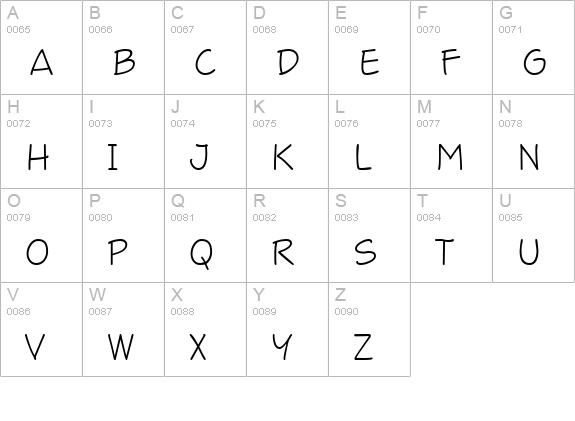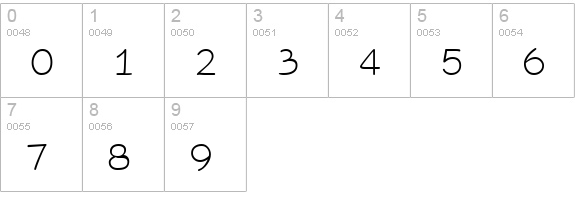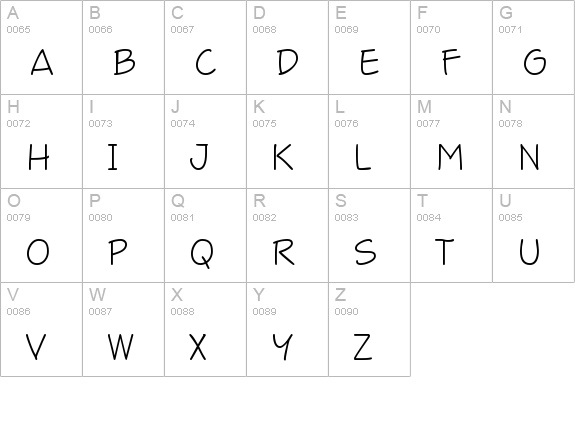
Draftsman Casual F Font Details
Draftsman Casual F font is a charming and versatile typeface that exudes a casual yet professional vibe. Its hand-drawn style brings a unique touch to any design project, making it perfect for anything from invitations to logos to social media graphics. This font features a playful and slightly imperfect look, adding character and personality to your text. Whether you're looking to create a fun and friendly design or a more relaxed and laid-back one, Draftsman Casual F font has got you covered. The best part? Draftsman Casual F font is completely free to download at FontsMarket.com. So go ahead and enhance your designs with this stylish and eye-catching typeface without breaking the bank. Download it now and let your creativity flow with this fantastic font!